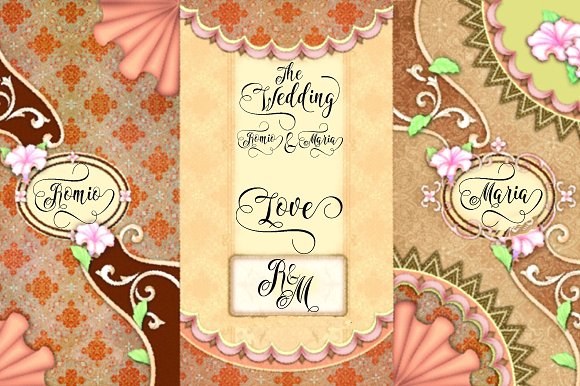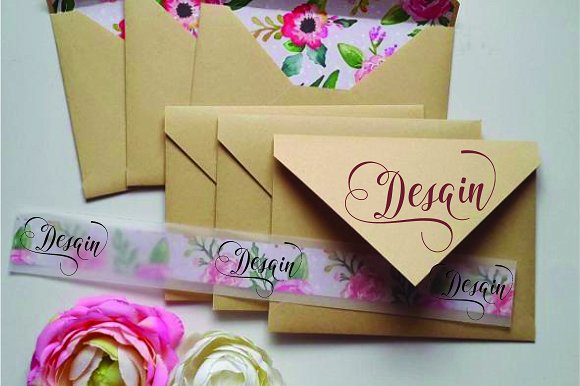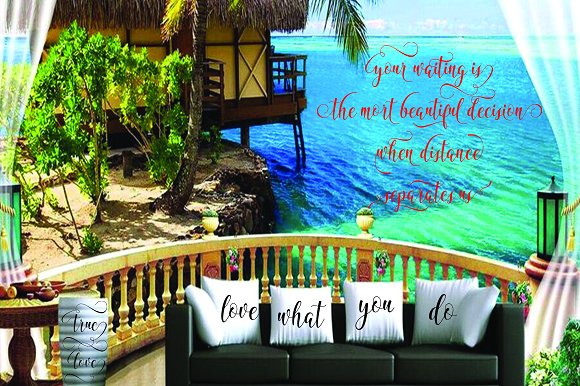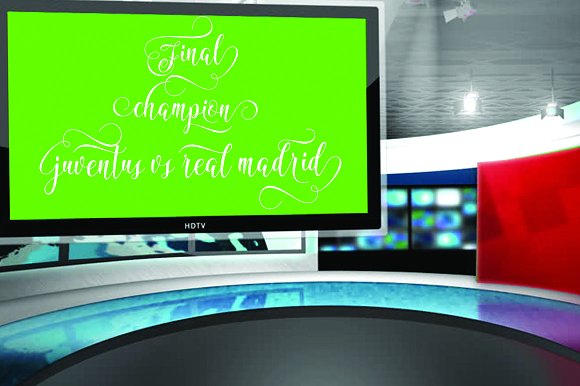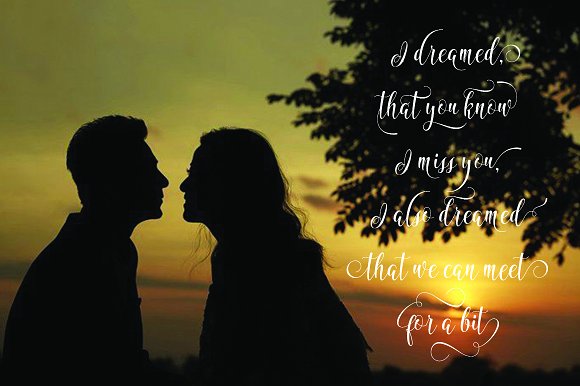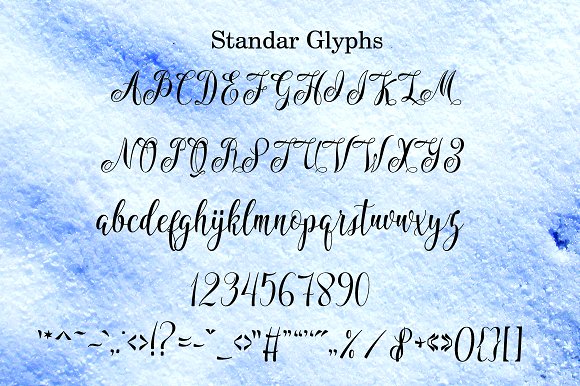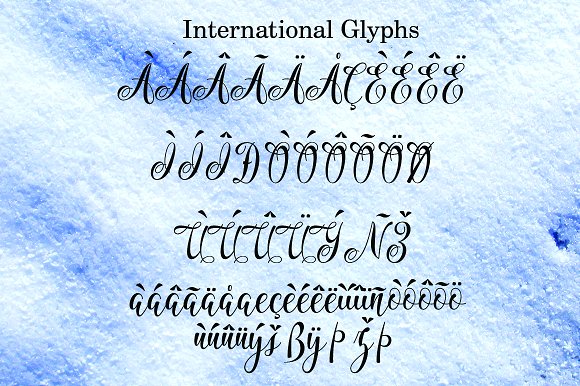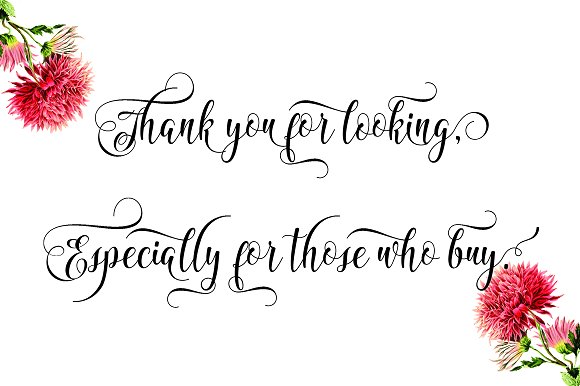
HomeScript FontsMarshanda Font Script Fonts Marshanda Font FacebookXPinterestWhatsApp Marshanda Font Poster 2 Marshanda Font Poster 3 Marshanda Font Poster 4 Marshanda Font Poster 5 Marshanda Font Poster 6 Marshanda Font Poster 7 Marshanda Font Poster 8 Marshanda Font Poster 9 About Marshanda Font Marshanda is a lovely modern calligraphy typeface that combines classic calligraphy with a modern style. DOWNLOAD NOW People also explored Hortensia Font West Riattol Font Spiked Font School Font Butterhoney Font The Yoshi Font Naturaliste Font Handmade Font Be Mine Font 292 0 TagsMarshanda Font Previous articleQalinda FontNext articleGalaxy Boy Font LEAVE A REPLY Cancel reply Comment: Please enter your comment! Name:* Please enter your name here Email:* You have entered an incorrect email address! Please enter your email address here Website: Save my name, email, and website in this browser for the next time I comment. Personal Use Free Time for Presents Personal Use Free Read more about this font Anggraini Personal Use Free Read more about this font Bright Dreams Personal Use Free Read more about this font Maharany Personal Use Free Read more about this font BLOG Elegant Wedding Invitation Fonts – Handwritten & Script Fonts Elegant Wedding Invitation Fonts Your wedding day is one of the most important moments of your life, and every detail matters—including your invitation design. Our... Best Fonts for T-Shirt Design – Top 2025 Picks How to Install and Use Fonts on Windows, macOS, and Web Projects Top 10 Handwritten Fonts That Elevate Your Designs